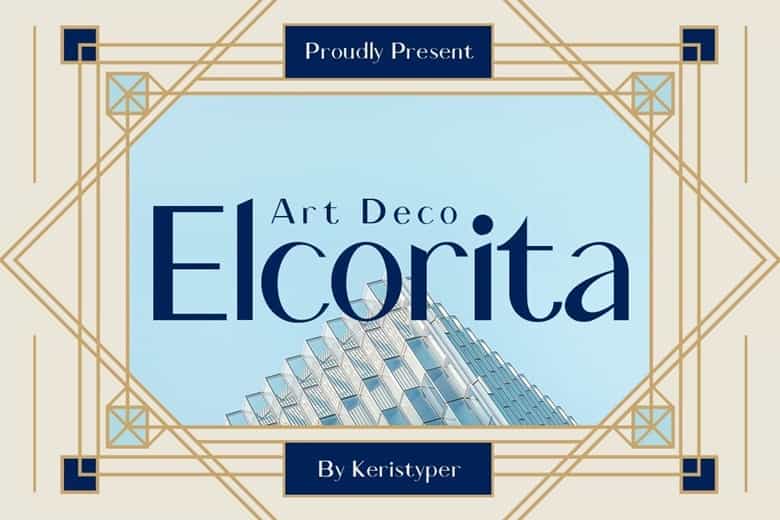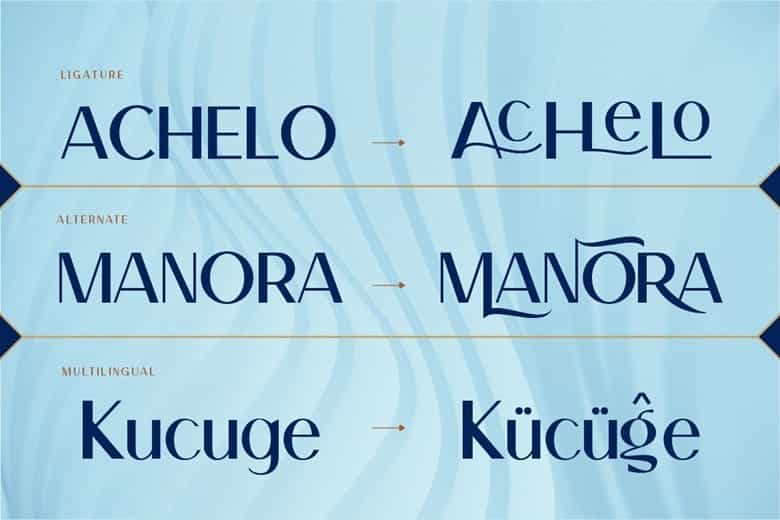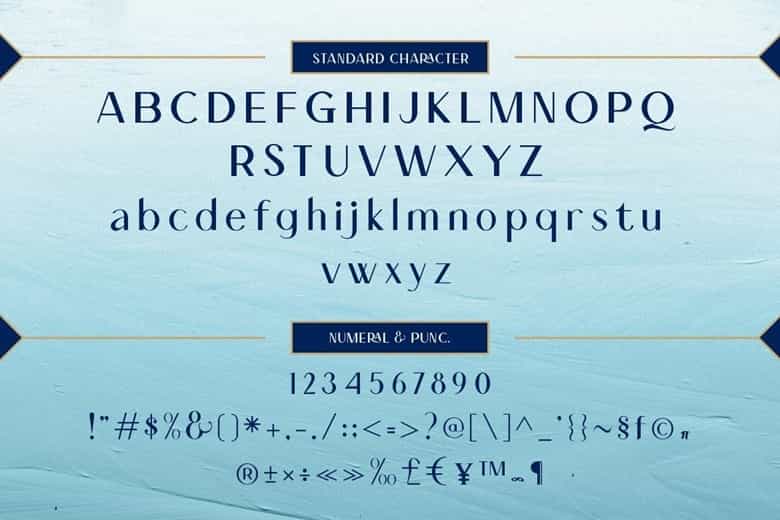
Elcorita is a beautiful sans serif typefaces with art deco influences and strongly contrasted temperament, clean and minimalistic. This font is best justified for logo, for social networks, for titles of movies and books, small and large Letters and for secondary letters at least for sans or serif.